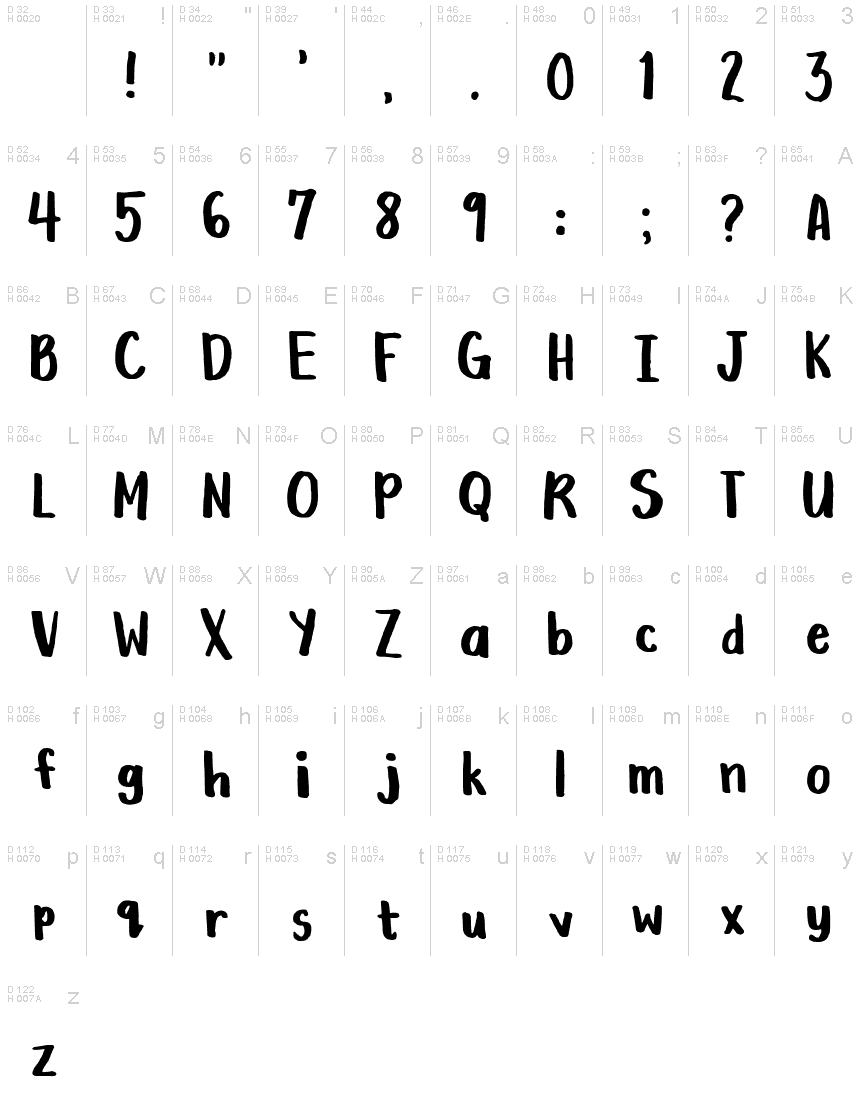
Vee With A Marker Regular
Vee With A Marker, designed by Vida Dorothy Latonio, is a semi-bold handwritten font perfect for adding a personal touch to any project. The marker style adds an authentic edge to your designs, making it suitable for a range of creative projects such as greeting cards, invitations, logos and social media graphics. Its fluid strokes lend themselves well to crafting whimsical typography or creating an informal feel on menus or signage. Embrace the charm of this unique typeface by incorporating Vee With A Marker into your next project!